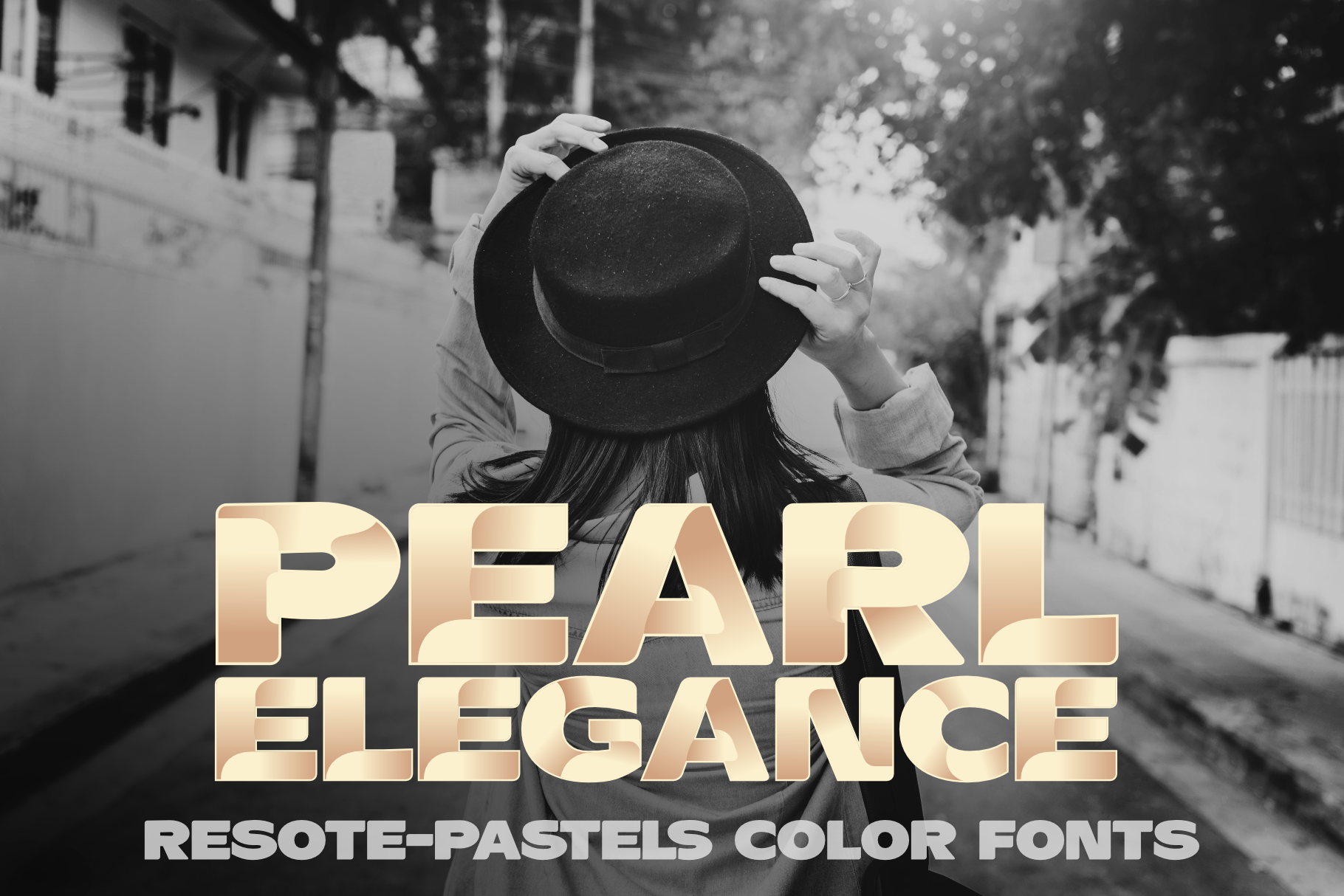
Color fonts ResotE-Pastels
ResotE-Pastels family was created inspired by the poetry of natural colors: the elegance of Pearls, the freshness of Mint, romanticism of Lavender and Cherry Blossom. Fully vector color Letters allow you to create any size headers, banners or advertising slogans. Because of the predefined pastel colors, of course, fonts work best on darker backgrounds. Automatic contextual alternates and ligatures built into the fonts compensate for whitespace area differences. Normal OTF ResotE (AllCaps) font is included in the package, which allows you to create text in smaller sizes in style of the ResotE family.